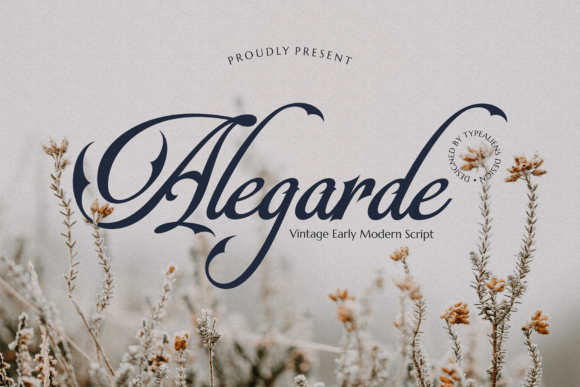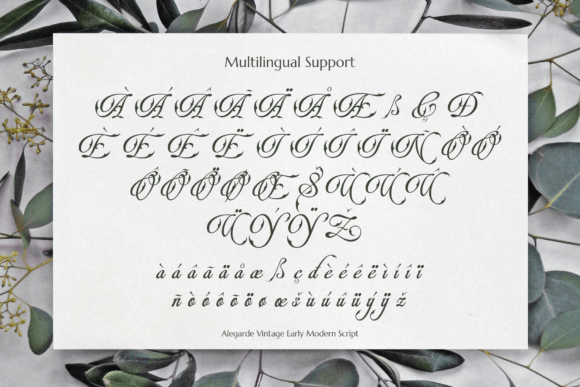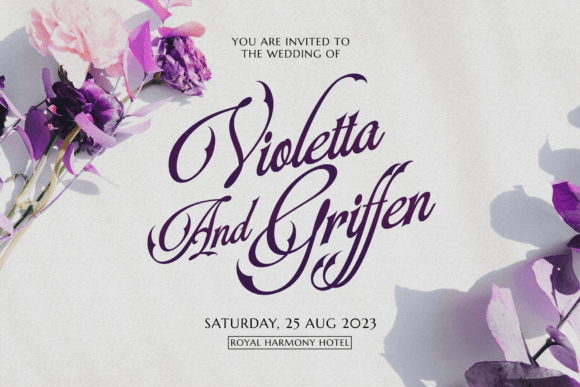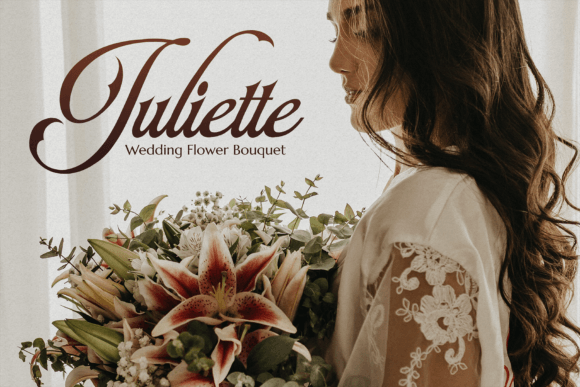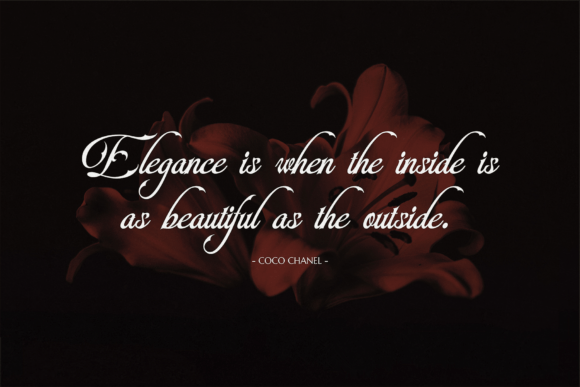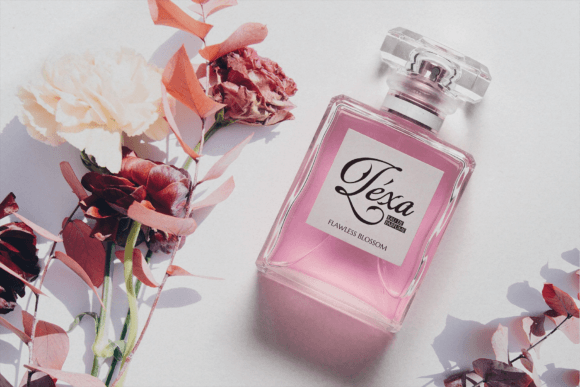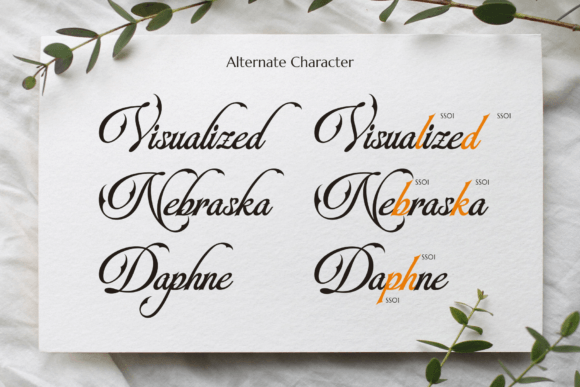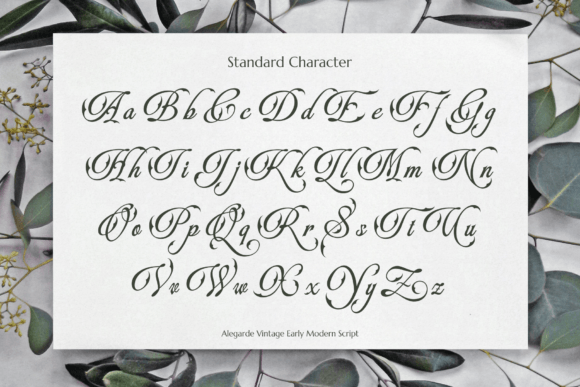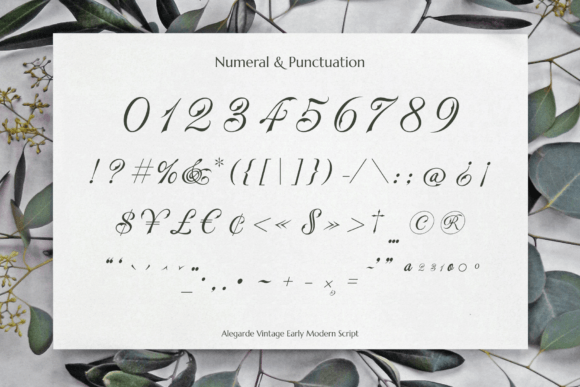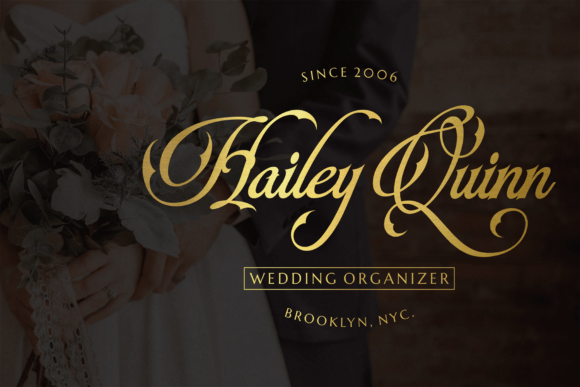
Alegarde Font
About Alegarde Font
Alegarde Font is a classic script typeface inspired by traditional copper plate fonts, enhanced with subtle gothic spires at the ends of its strokes. This elegant blend of classic and gothic elements creates a timeless font that works beautifully for sophisticated and modern design projects alike. Alegarde is perfect for writing heartfelt letters, wedding invitations, or featuring the names of brides and grooms with style.
Classic and Elegant Gothic-Inspired Design
Alegarde features smooth, flowing letterforms reminiscent of old copper plate calligraphy, combined with delicate gothic spires that add character and sophistication. Its elegant design balances tradition with a modern aesthetic, making it versatile for a variety of creative uses.
Ideal Uses for Alegarde Font
This refined font is suitable for:
• Wedding invitations and save-the-date cards
• Elegant letters and personal stationery
• Branding and logos with a classic feel
• Formal event materials and signage
• Stylish headers and titles
Alegarde brings a timeless elegance to all your projects.
Why Choose Alegarde Font?
Designers choose Alegarde for its:
• Classic copper plate inspiration with gothic flair
• Elegant and refined letterforms
• Versatility across traditional and modern design styles
These qualities make Alegarde a sophisticated and practical font choice.
Add Timeless Elegance to Your Designs
Typography sets the mood and tone of your work. Alegarde adds a refined and elegant personality that helps your designs feel both classic and contemporary. Whether for weddings, branding, or formal events, this font enhances your creative vision with grace.